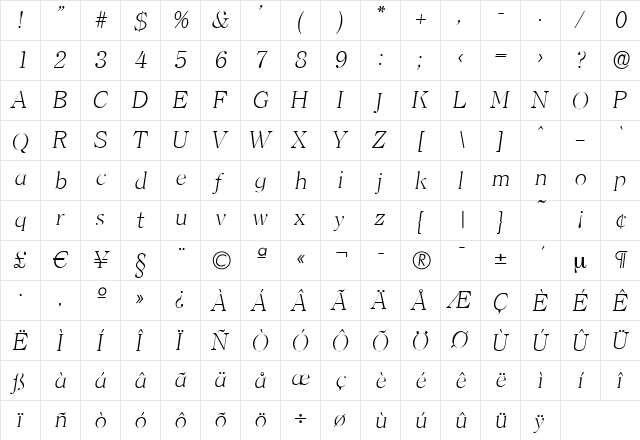
ChristianBecker-ExtraLight Italic
Design Context for ChristianBecker-ExtraLight Typeface
ChristianBecker-ExtraLight offers clean, dependable letterforms without strong stylistic allegiance, making it a practical choice for designers who need flexibility. The slanted form adds forward momentum and visual energy. Its slender proportions lend an understated elegance to any composition.
Pro Tip: Use ChristianBecker-ExtraLight for emphasis, pull quotes, and subheadings where its slanted energy can add rhythm to the layout.